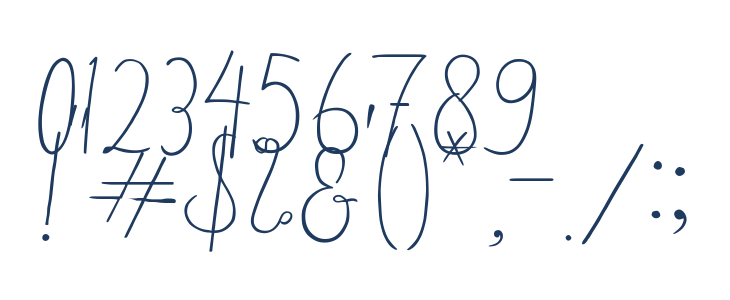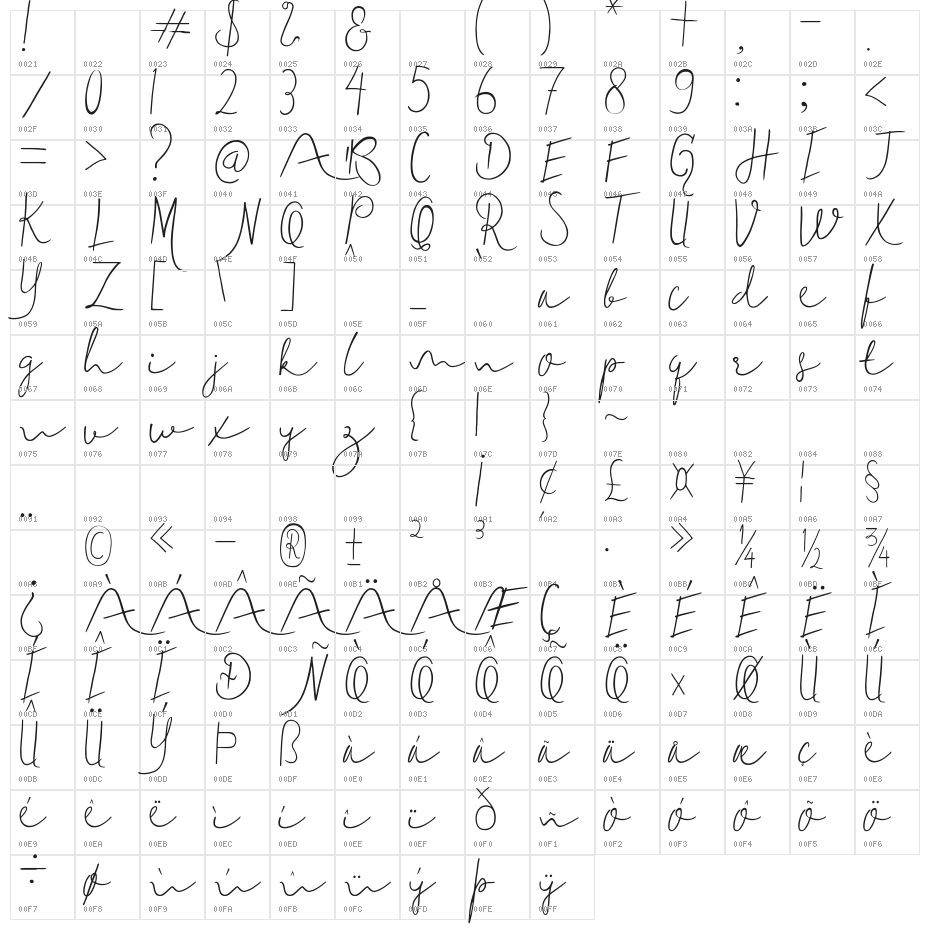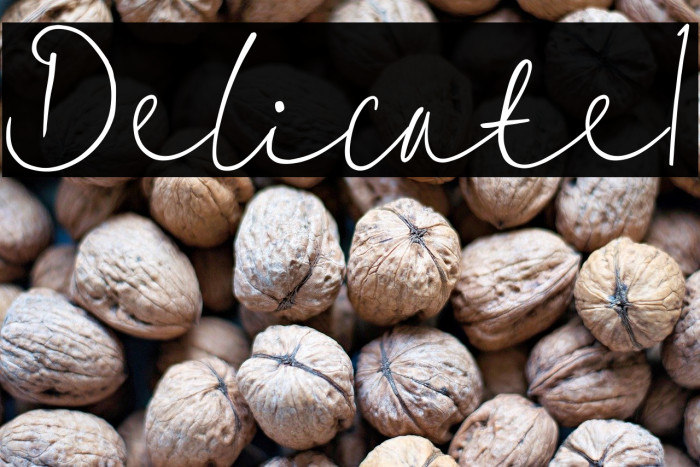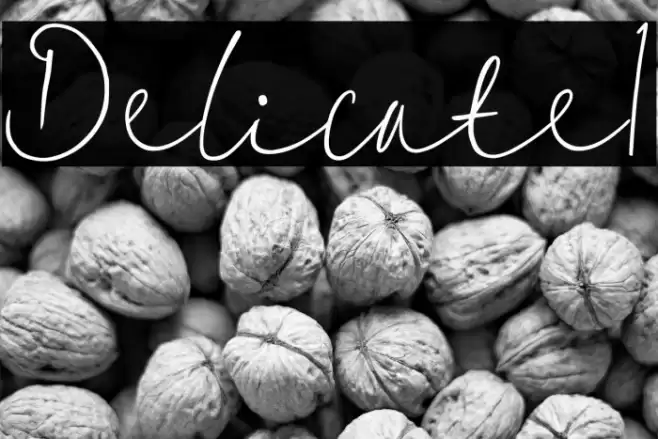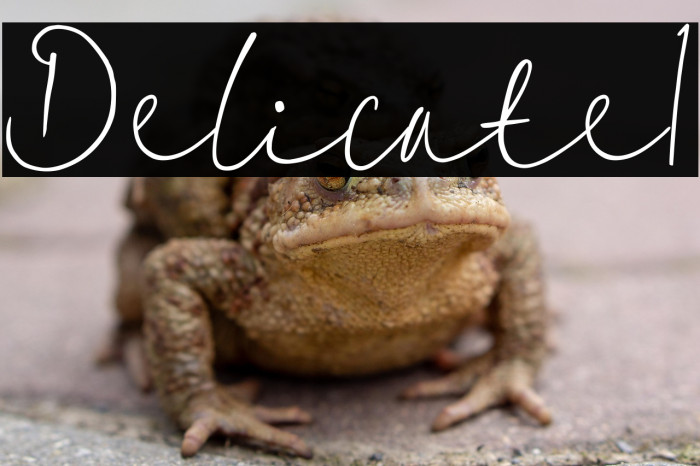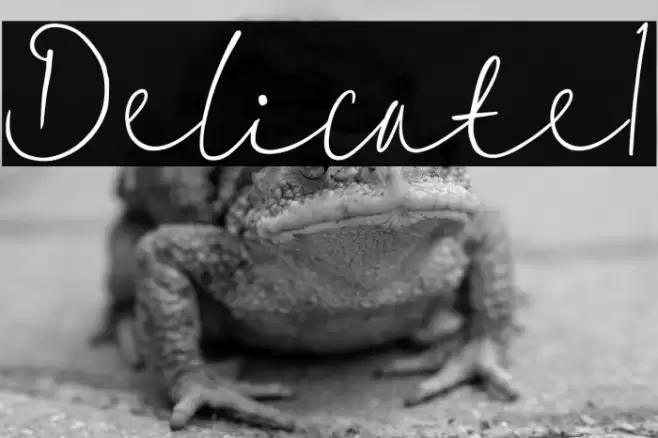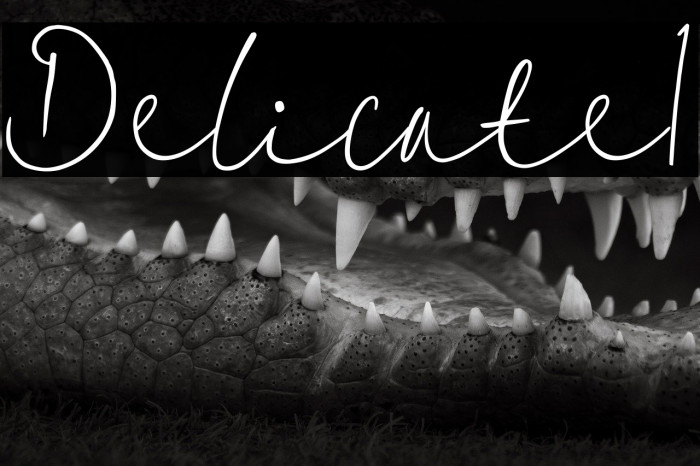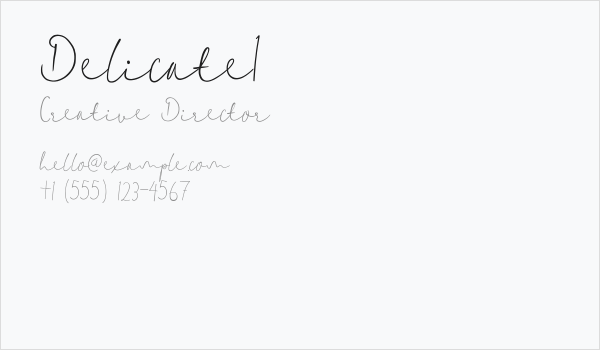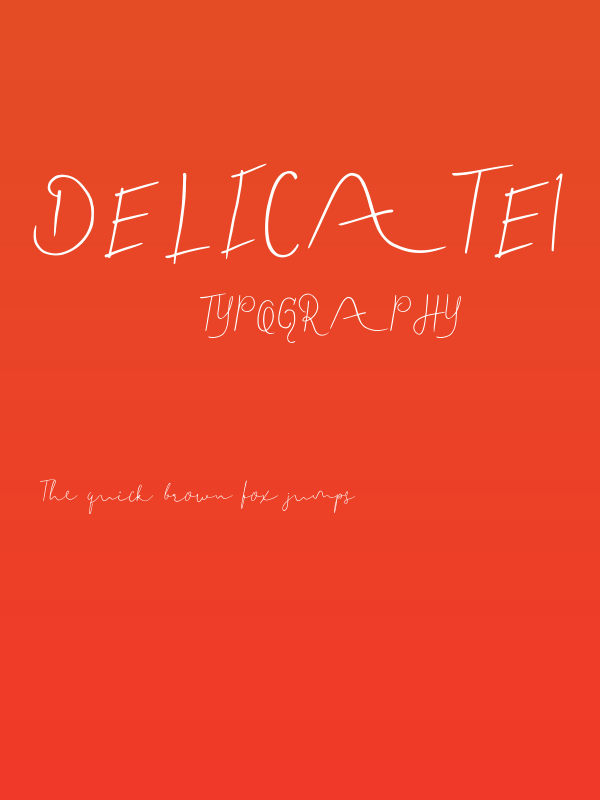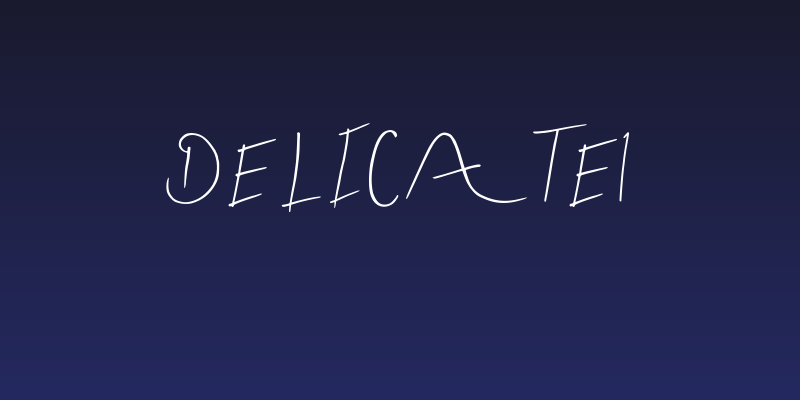
Delicate1 Font
Delicate1 Description
This font features a delicate and flowing script style, characterized by its thin, elegant strokes and graceful curves. The uppercase letters exhibit a sense of fluidity and movement, with some characters incorporating subtle loops and flourishes. The lowercase letters maintain a consistent style, with smooth connections between letters, enhancing the overall cursive appearance. The numerals are tall and slender, complementing the alphabet with their refined and airy design. Special characters are integrated seamlessly, maintaining the font's cohesive aesthetic. This font exudes a sense of sophistication and charm, making it suitable for projects that require a touch of elegance.
| Overall Style | Elegant, Sophisticated |
| Use Case | Headlines, Invitations, Decorative text |
| Proposed Projects | Ideal for wedding invitations, elegant branding, personal stationery, and decorative quotes. |